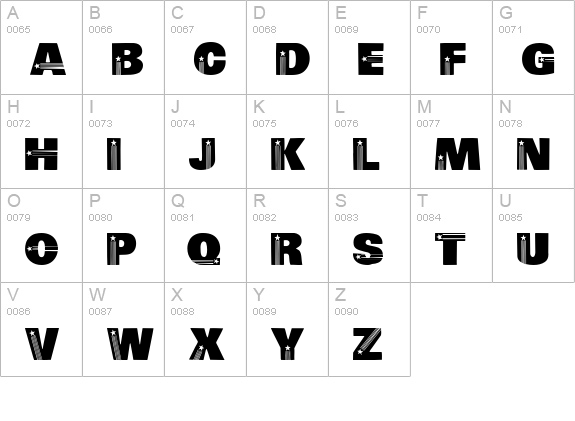
ElectionTime font embodies the essence of democracy and political fervor with its bold and commanding design. This versatile font is perfect for creating impactful campaign materials, election posters, and patriotic designs. Its sleek and modern look captures attention and conveys a sense of authority and power. Best of all, ElectionTime font is available for free download at FontsMarket.com. Whether you're a designer working on a political project or an enthusiast looking to add a touch of political flair to your designs, this font is a must-have in your collection. Don't miss the opportunity to freely access this dynamic and eye-catching typeface that will elevate your design projects to new heights.